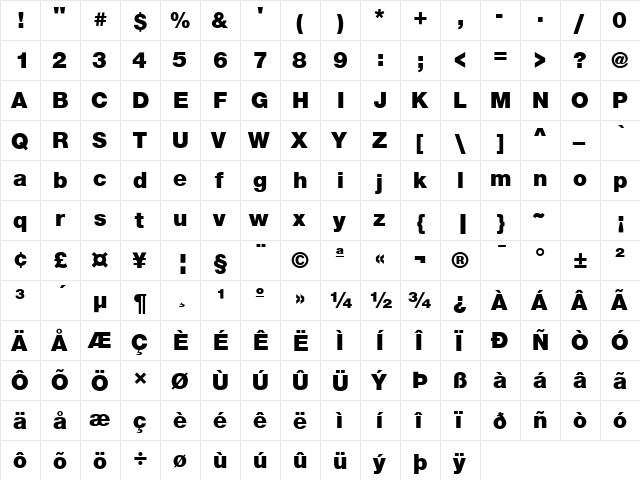
Sans Black Regular
Design Context for Sans Black Typeface
Sans Black offers clean, dependable letterforms without strong stylistic allegiance, making it a practical choice for designers who need flexibility.
Pro Tip: Use Sans Black in both headline and body roles to test its range before committing to a single application.